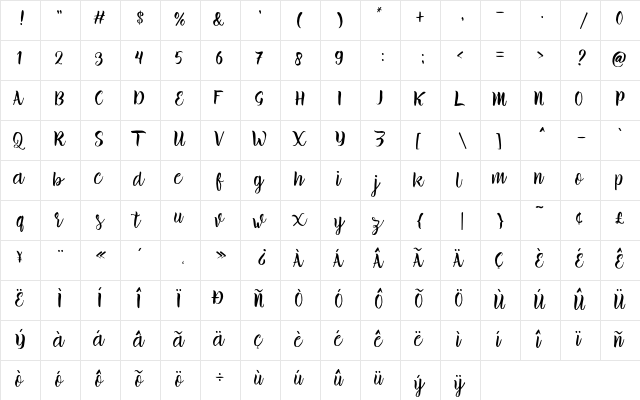
brillia Free Demo Regular Font Preview
brillia Free Demo Regular
brillia Free Demo Regular Font Details
| Foundry | Queentype |
| Designer | Queentype |
Design Context for brillia Free Demo Typeface
brillia Free Demo is a composed and adaptable typeface that performs quietly and consistently across a wide range of design contexts.